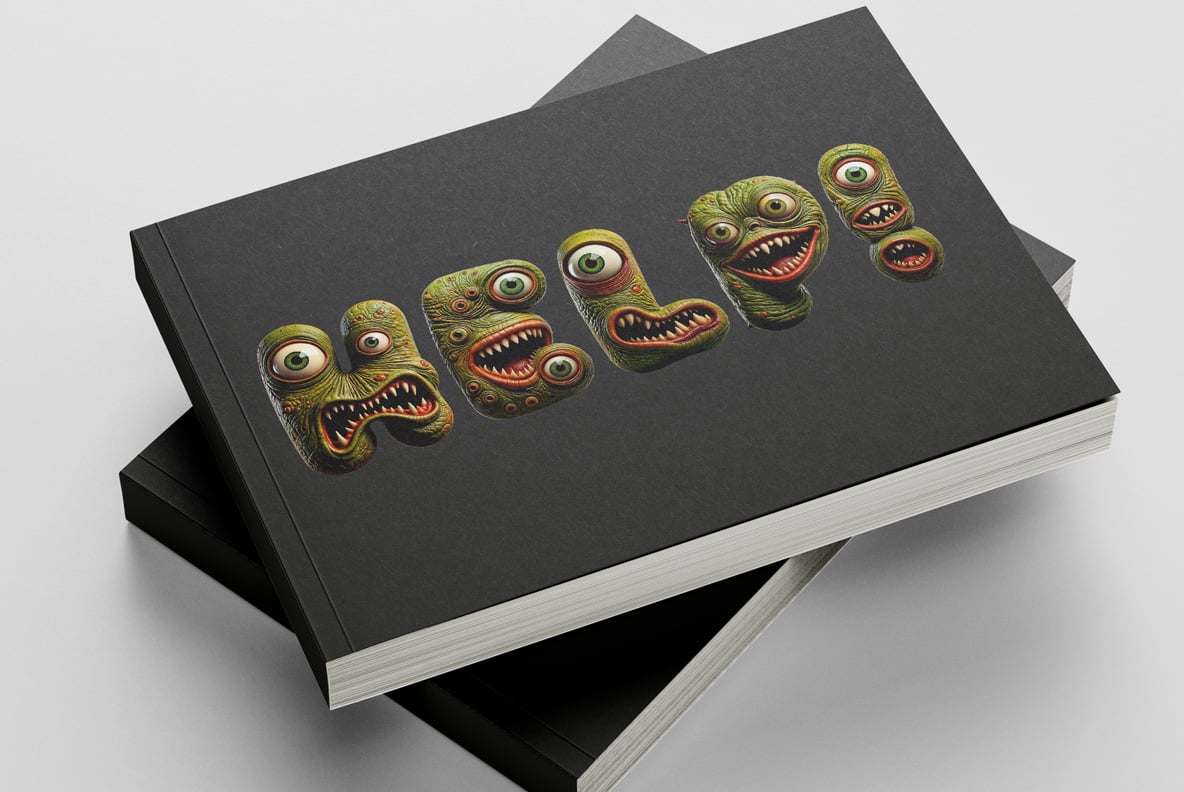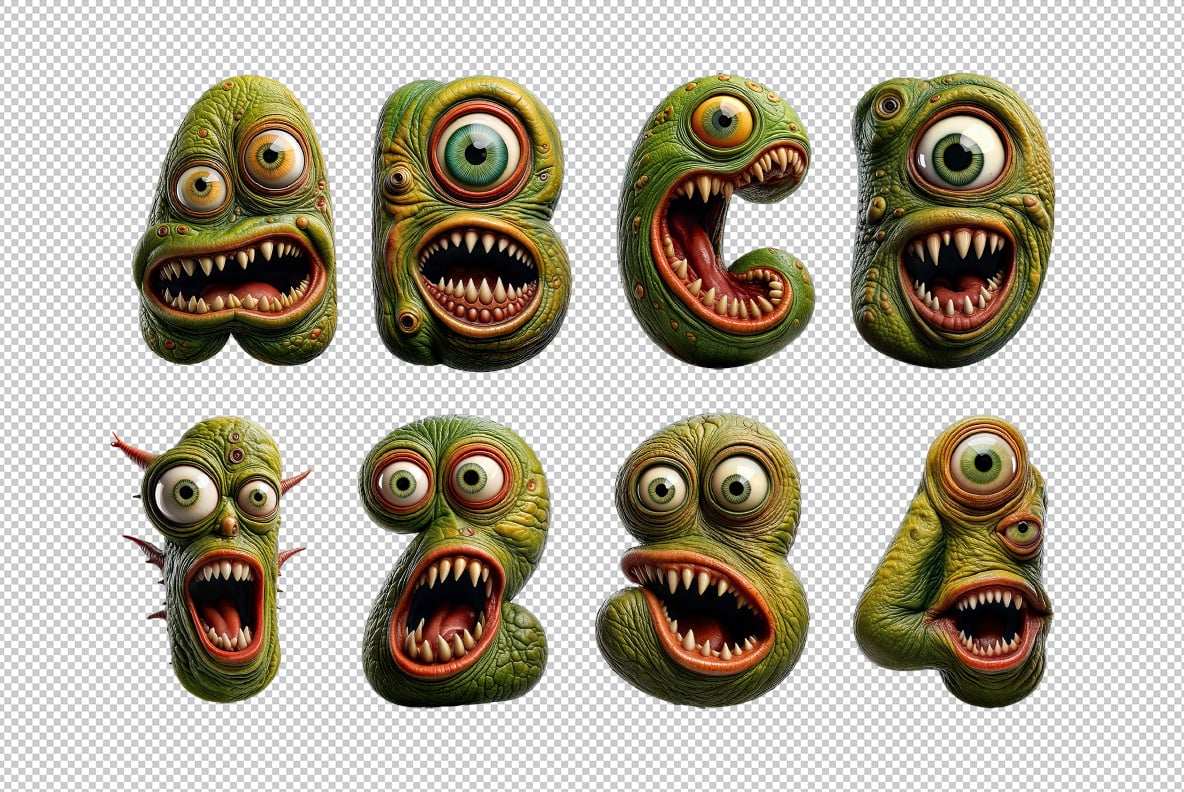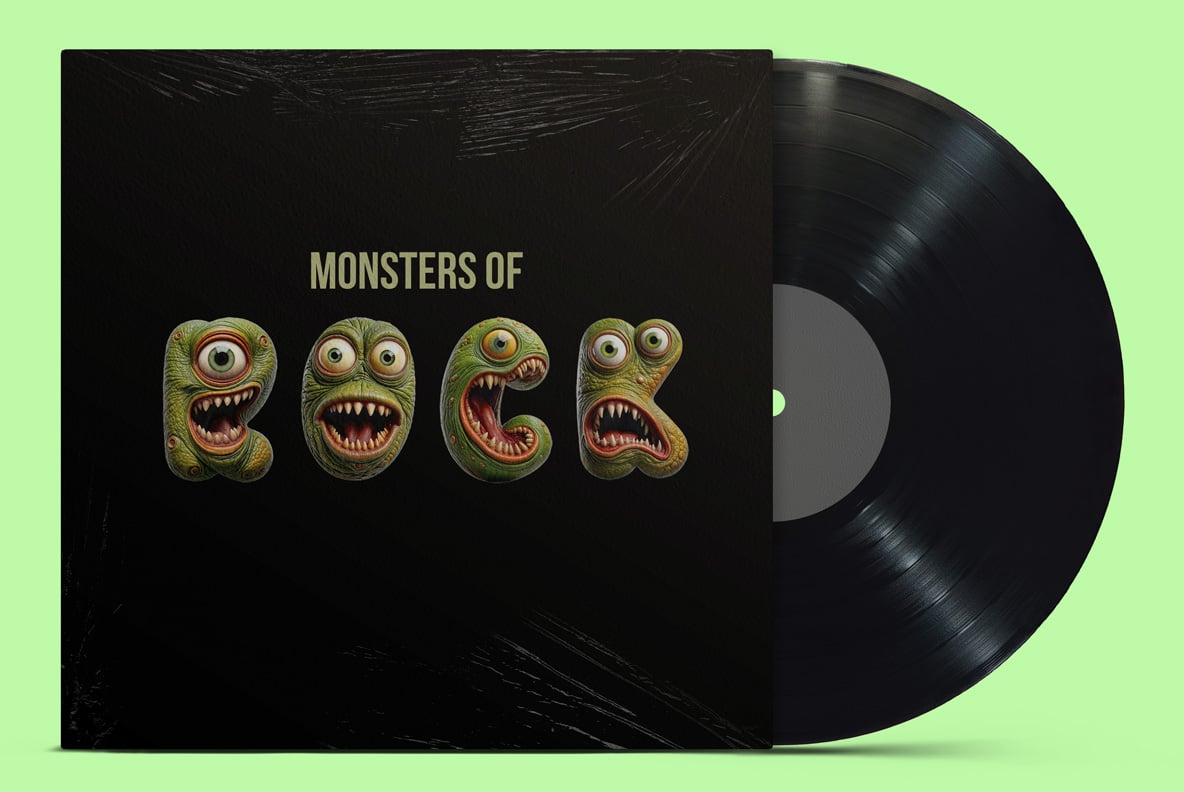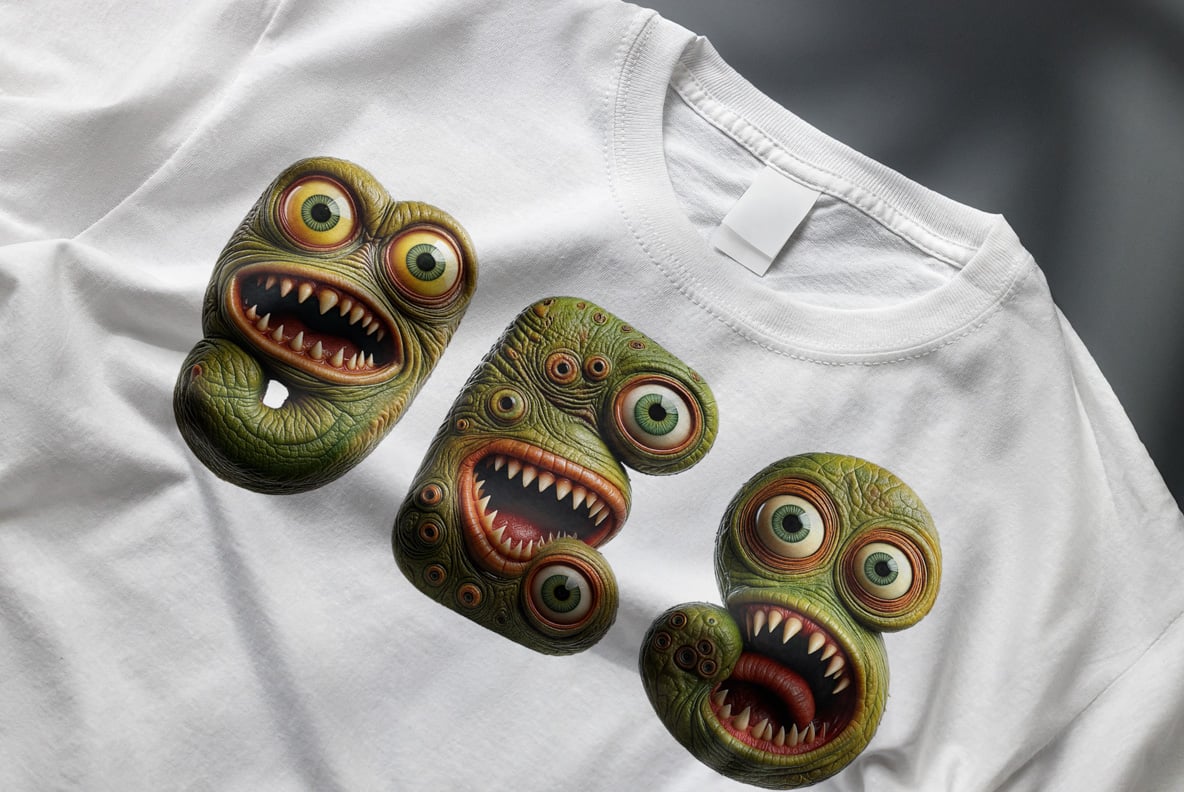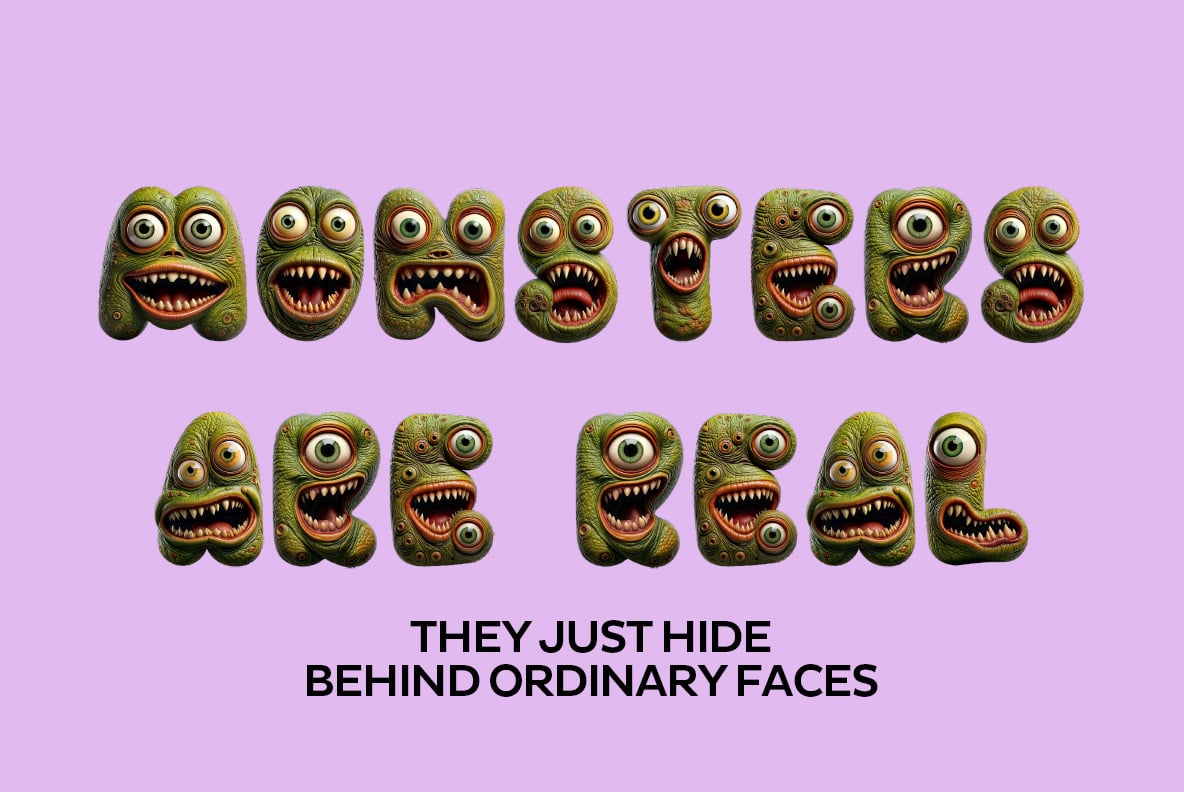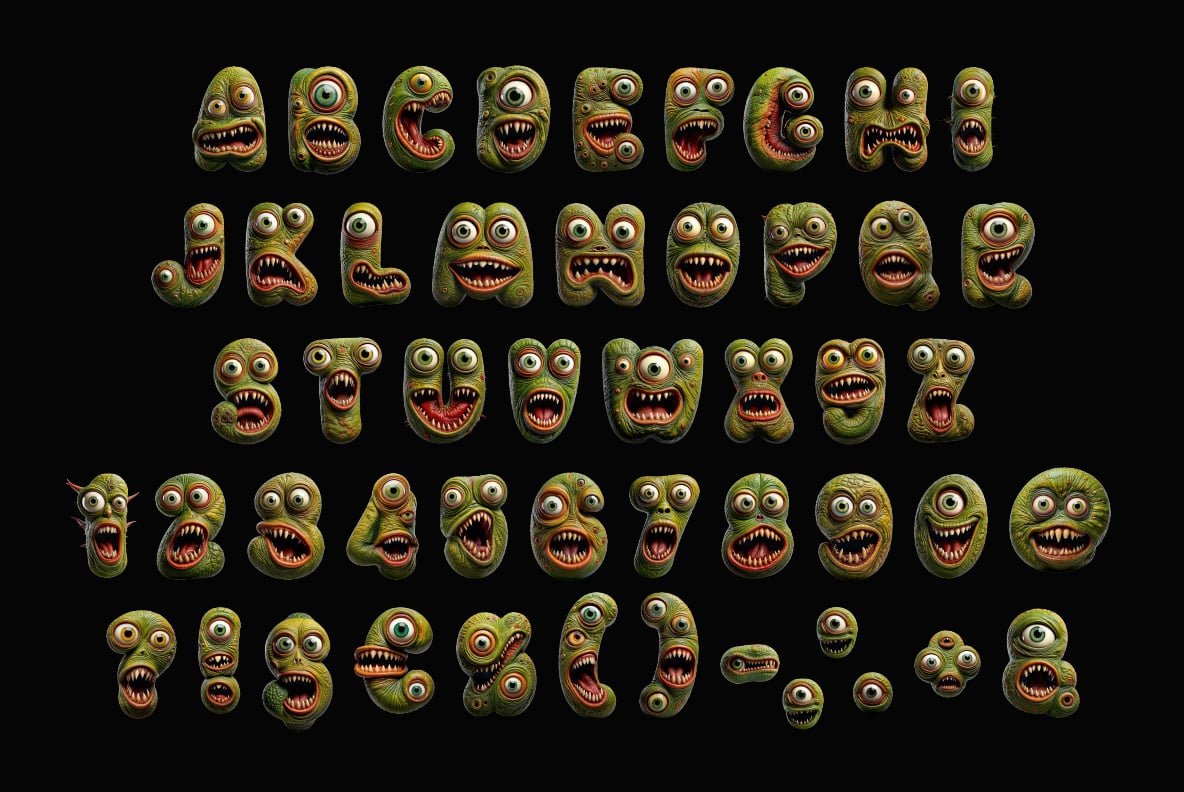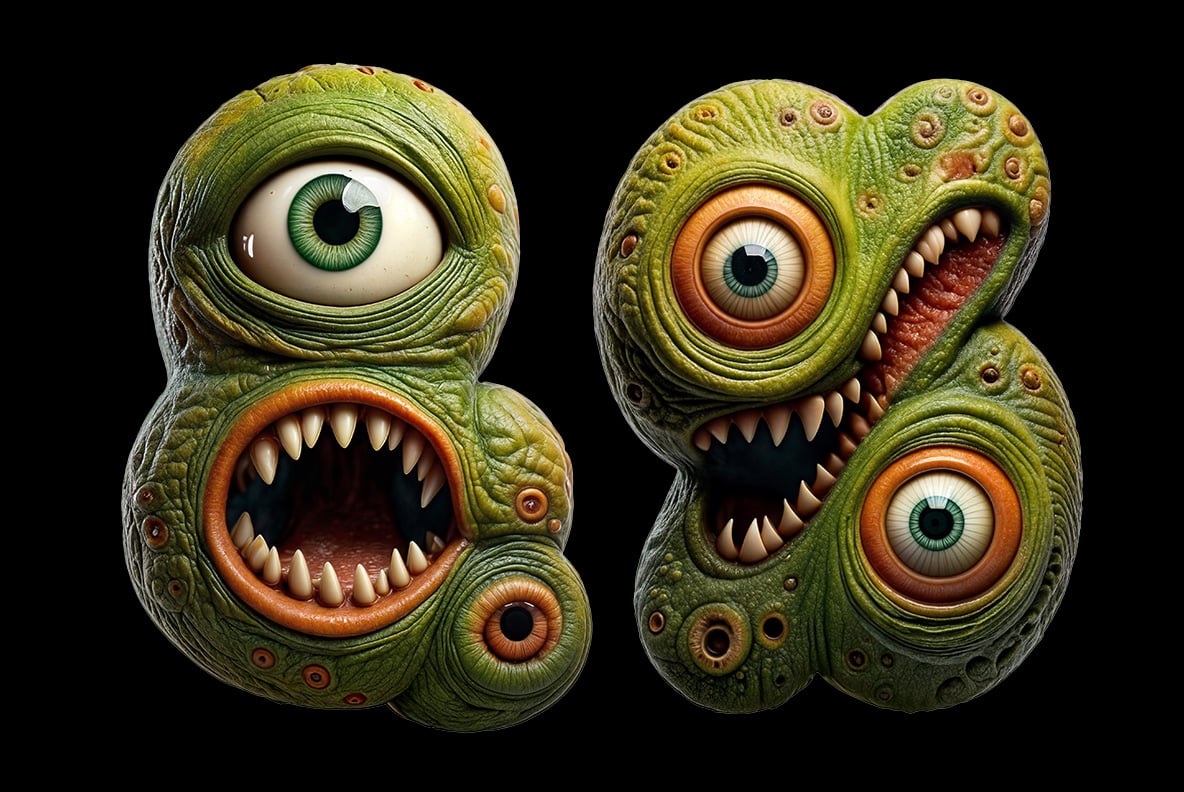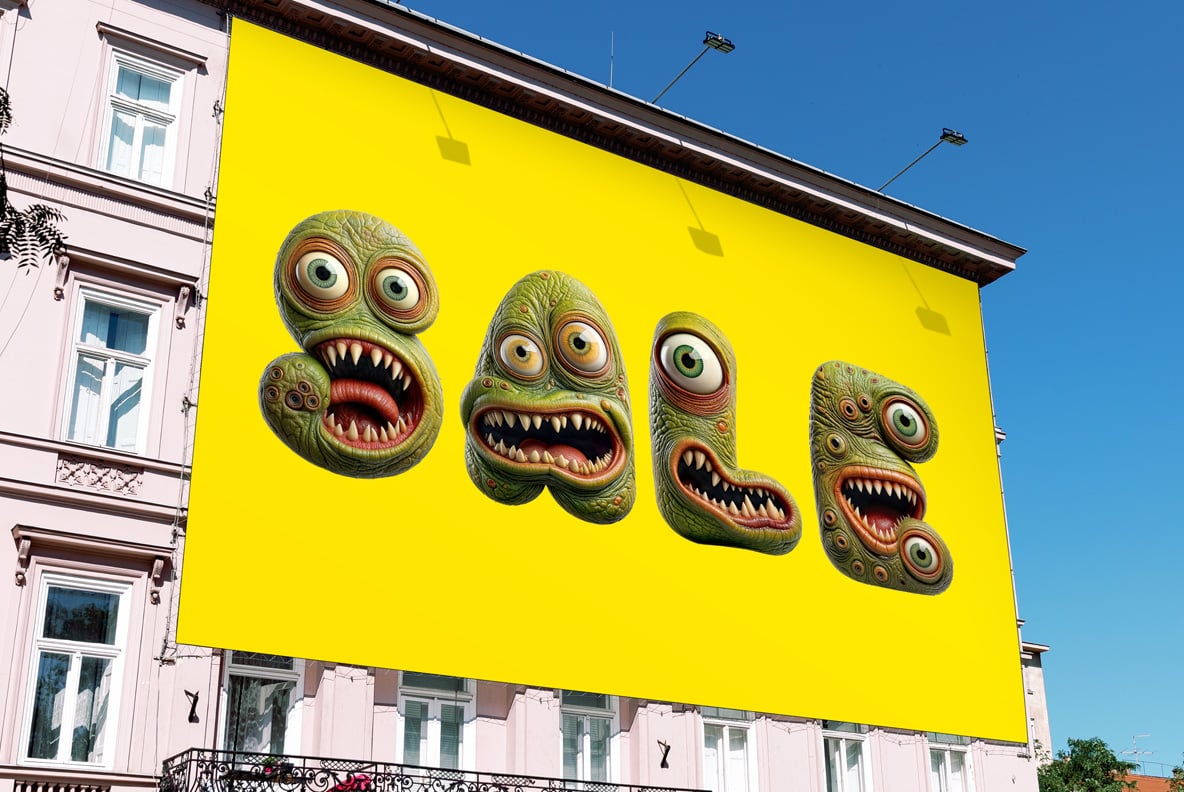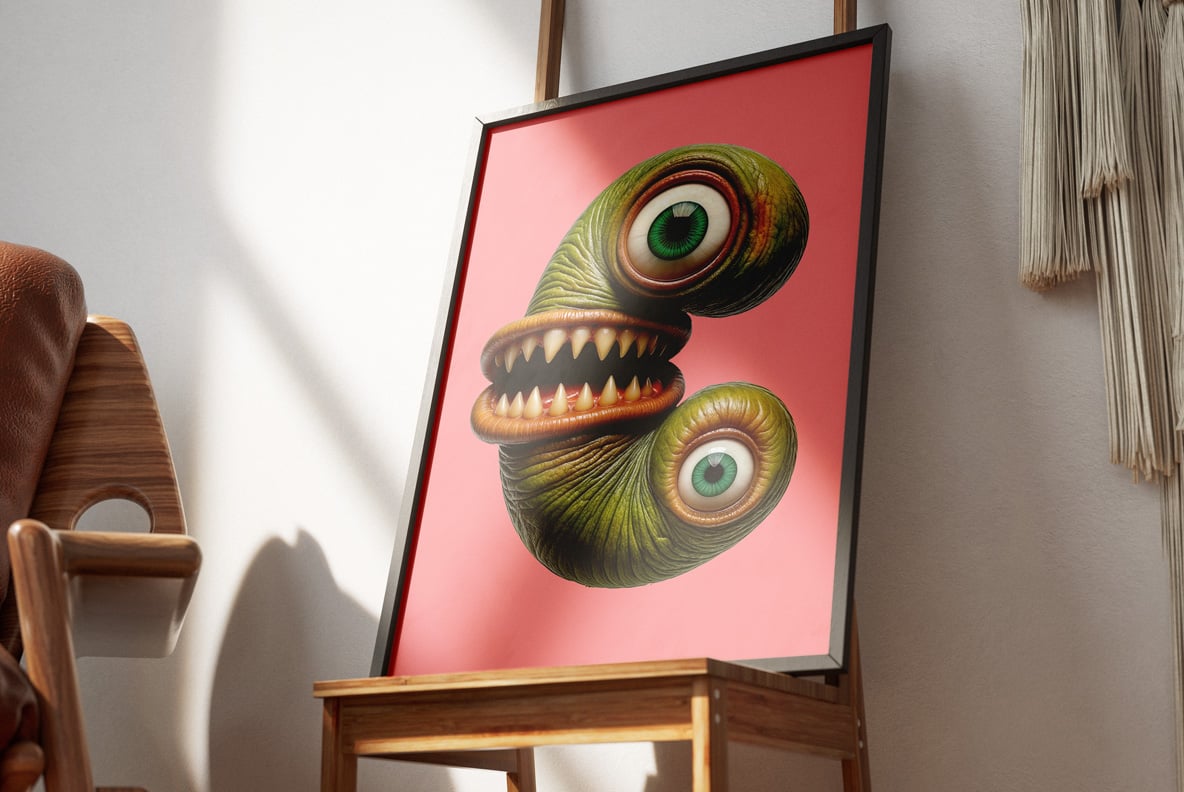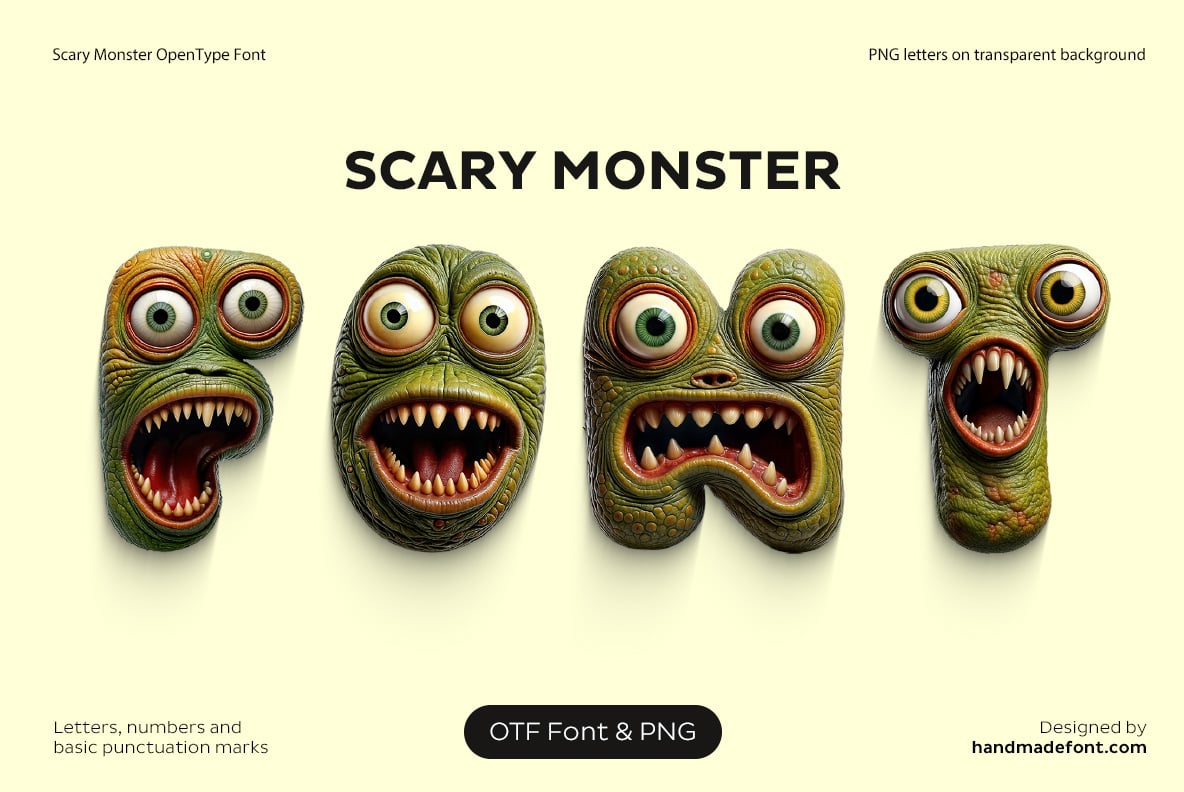
Scary Monster Font
Monster madness meets typography magic! Introducing Scary Monster Font — a monstrously hilarious blend of creepy and cartoonish charm. Each letter is a wild creature of its own, shaped like a green, bumpy monster with warts, boils, and an attitude. With mismatched, googly eyes and wide, toothy grins (or grimaces?), this monster-inspired font howls with personality. It’s spooky yet silly, weird yet wonderful — the perfect monster alphabet for projects that scream fun. Whether you’re summoning spooky vibes or crafting a comically creepy design, this animated monster typography will have your words growling, grinning, and grabbing attention. Beware… it's frighteningly funny!